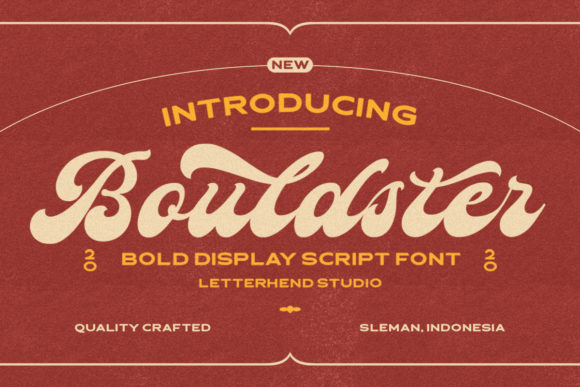
Bouldster Font: Elevate Your Designs with a Ravishing and Daring Handwritten Style
In the realm of typography, a font can make or break the visual appeal of a design. For those seeking to add a touch of style and sophistication to their headlines and logotype projects, Bouldster Font is an exceptional choice. This ravishing and daring handwritten font is crafted to infuse your designs with a strong, confident, and dynamic flair, while also evoking a sense of nostalgia.
The Characteristics of Bouldster Font
Bouldster Font boasts a unique and captivating appearance that sets it apart from other fonts. Its handwritten style exudes a sense of raw energy and spontaneity, making it perfect for designs that require a bold and daring aesthetic. The font’s strong and confident lines convey a sense of authority, while its dynamic curves add a touch of playfulness.
One of the standout features of Bouldster Font is its ability to add tons of nostalgic character to your designs. The font’s classic handwritten style is reminiscent of a bygone era, evoking memories of vintage posters, advertisements, and logos. This nostalgic appeal makes Bouldster Font an excellent choice for designers looking to create designs that are both modern and timeless.
The Benefits of Using Bouldster Font
So, why choose Bouldster Font for your design projects? Here are just a few benefits of using this exceptional font:
- Unique and eye-catching: Bouldster Font is a one-of-a-kind font that is sure to grab attention. Its bold and daring style makes it perfect for headlines, logotypes, and other design elements that require a strong visual impact.
- Versatile: Bouldster Font is a versatile font that can be used in a wide range of design projects, from posters and advertisements to logos and branding materials.
- Nostalgic appeal: The font’s classic handwritten style adds a touch of nostalgia to your designs, making them more relatable and engaging.
- Easy to read: Despite its bold and daring style, Bouldster Font is surprisingly easy to read, making it perfect for use in body text as well as headlines.
How to Use Bouldster Font in Your Design Projects
Using Bouldster Font in your design projects is easy. Here are a few tips to get you started:
- Pair it with a neutral font: Bouldster Font is a bold and attention-grabbing font, so it’s best to pair it with a neutral font that provides a nice contrast.
- Use it for headlines and logotypes: Bouldster Font is perfect for use in headlines and logotypes, where its bold and daring style can make a strong visual impact.
- Experiment with different colors: Bouldster Font looks great in a wide range of colors, so don’t be afraid to experiment and find the perfect hue for your design.
- Play with different sizes: Bouldster Font can be used at a variety of sizes, from large headlines to smaller body text.
The Design Process Behind Bouldster Font
The design process behind Bouldster Font involved a deep understanding of typography and a passion for creating unique and eye-catching fonts. The font’s creator carefully crafted each letterform to ensure that it was both stylish and legible.
The design process began with a thorough analysis of classic handwritten fonts, which provided inspiration for the font’s bold and daring style. The creator then used this inspiration to craft a font that was both modern and timeless.
In conclusion, Bouldster Font is an exceptional choice for designers looking to add a touch of style and sophistication to their headlines and logotype projects. Its unique and eye-catching appearance, versatility, and nostalgic appeal make it a font that can elevate any design project. Whether you’re a seasoned designer or just starting out, Bouldster Font is a must-have font that is sure to become a staple in your design arsenal.
- What is Bouldster Font? Bouldster Font is a ravishing and daring handwritten font, crafted to give your headlines and logotype projects a stylish touch.
- What are the benefits of using Bouldster Font? Bouldster Font is a unique and eye-catching font that is versatile, easy to read, and has a nostalgic appeal.
- How do I use Bouldster Font in my design projects? Bouldster Font can be used in a wide range of design projects, from posters and advertisements to logos and branding materials. It’s best to pair it with a neutral font and use it for headlines and logotypes.